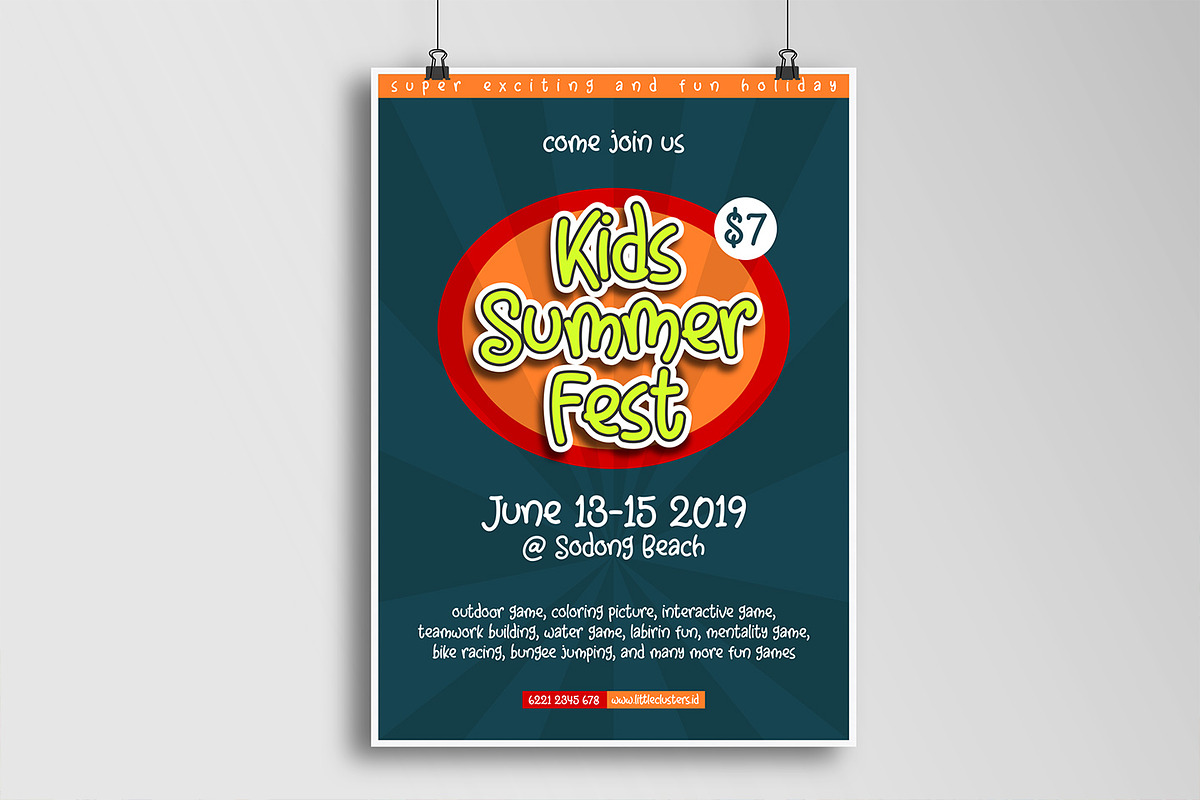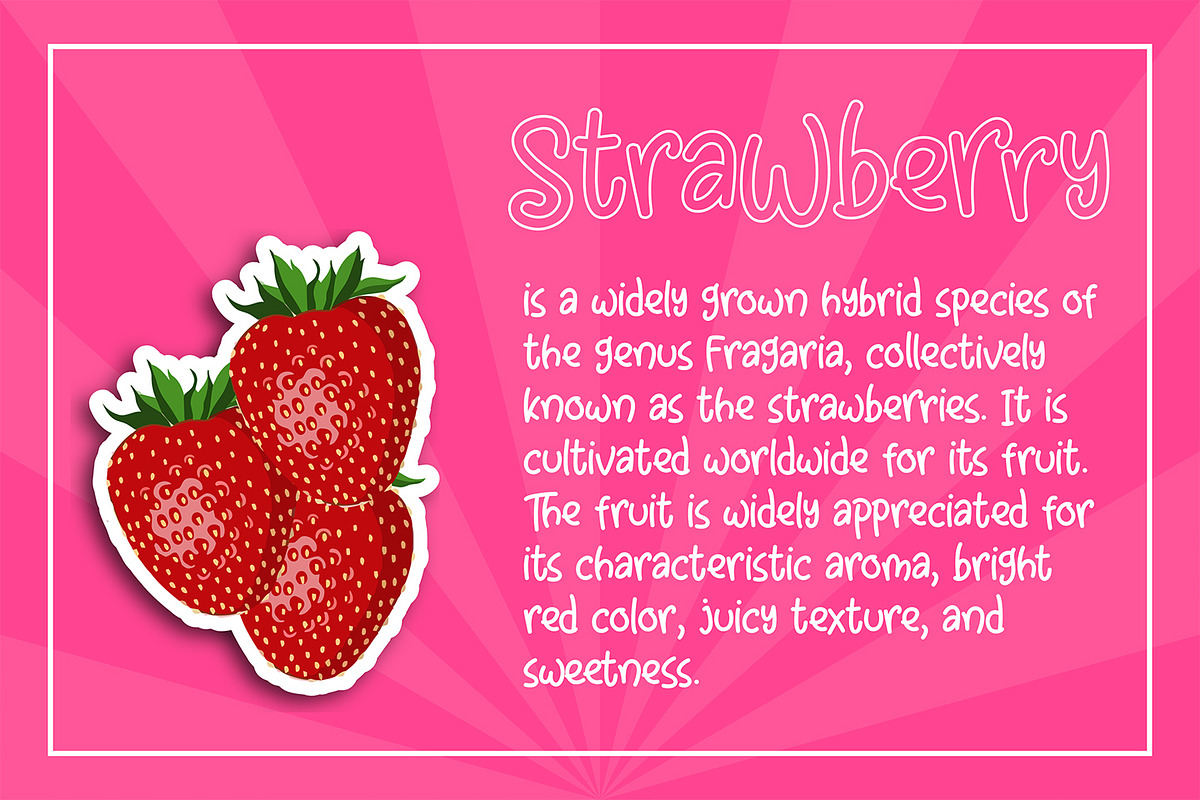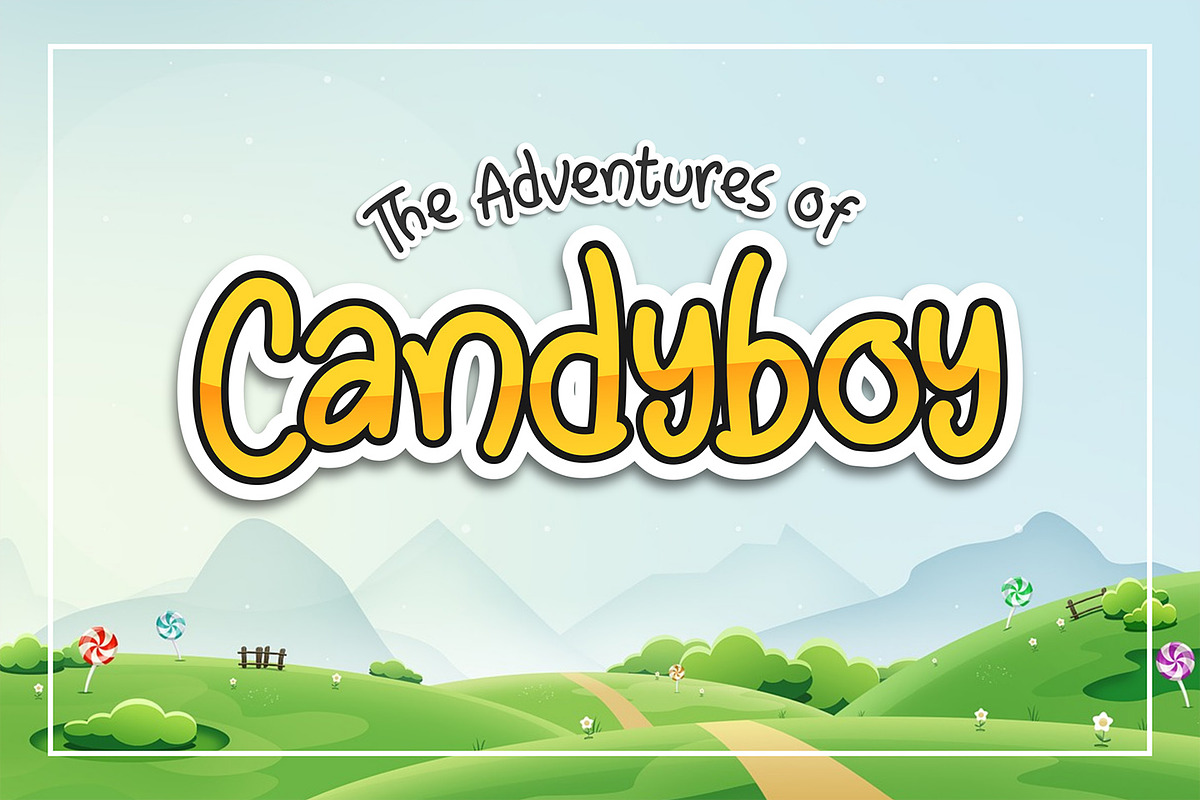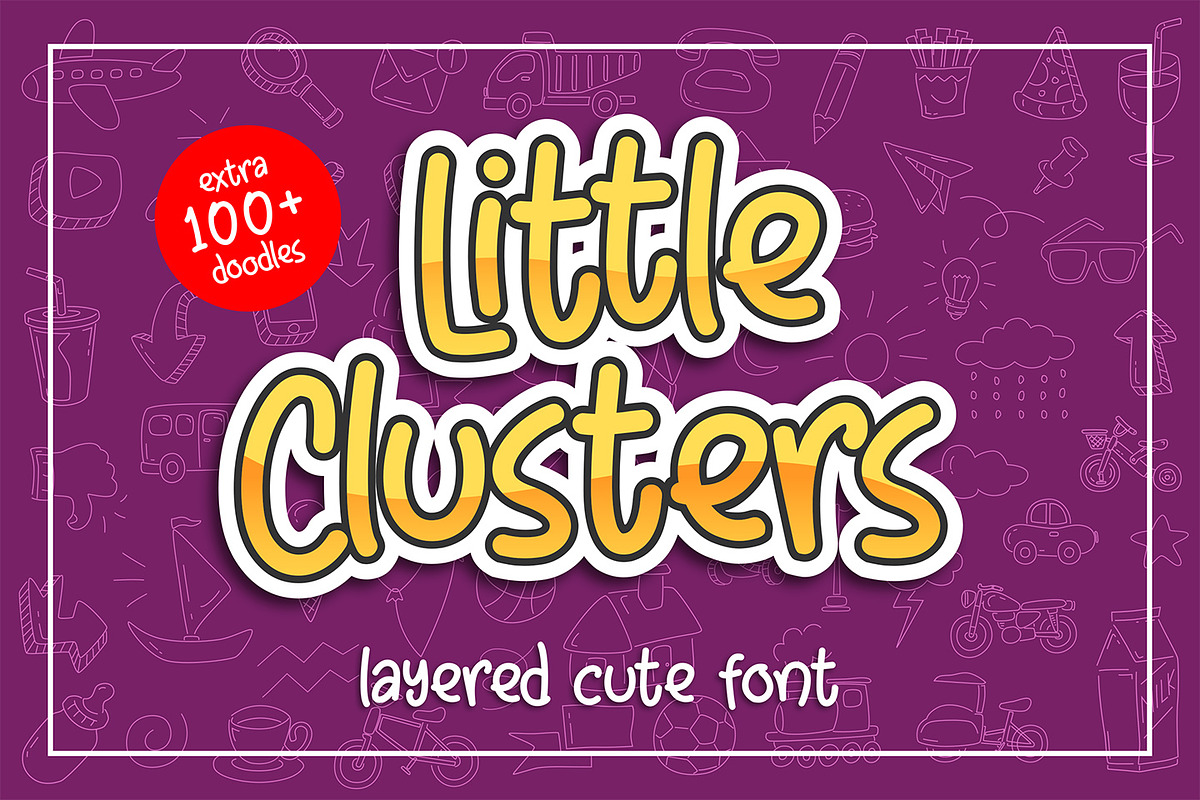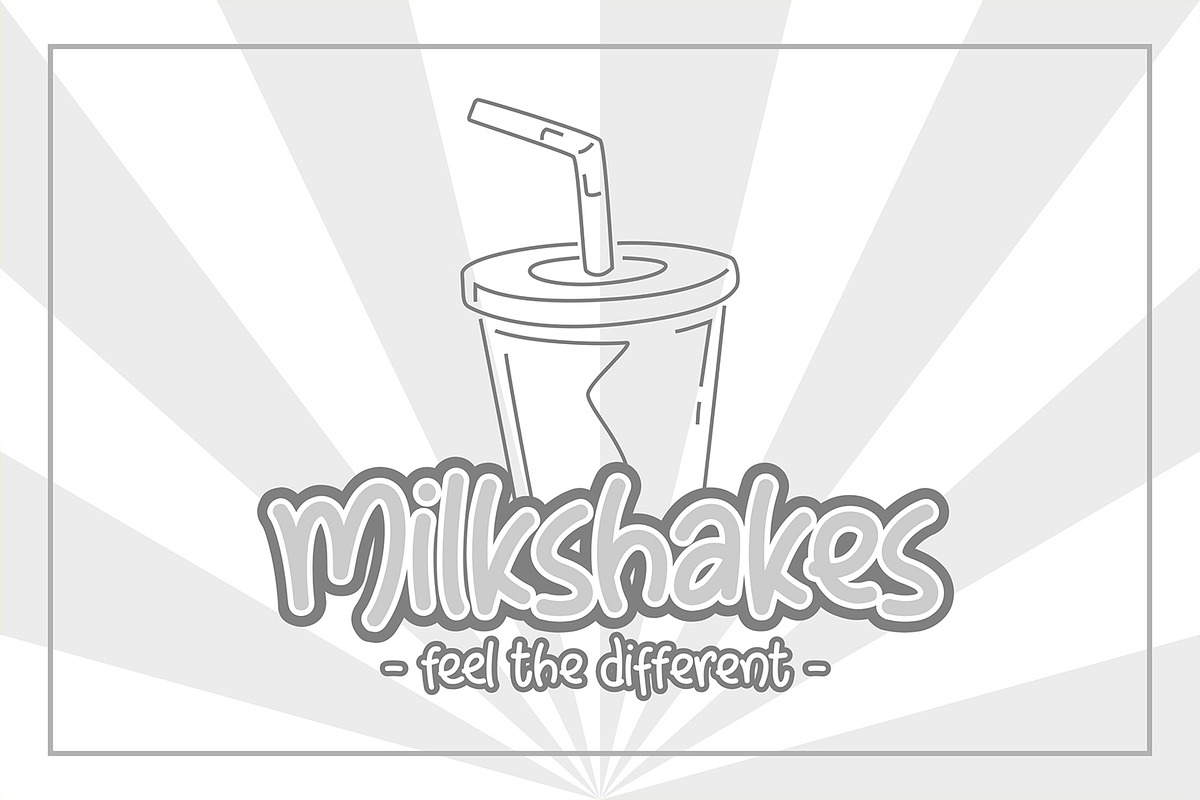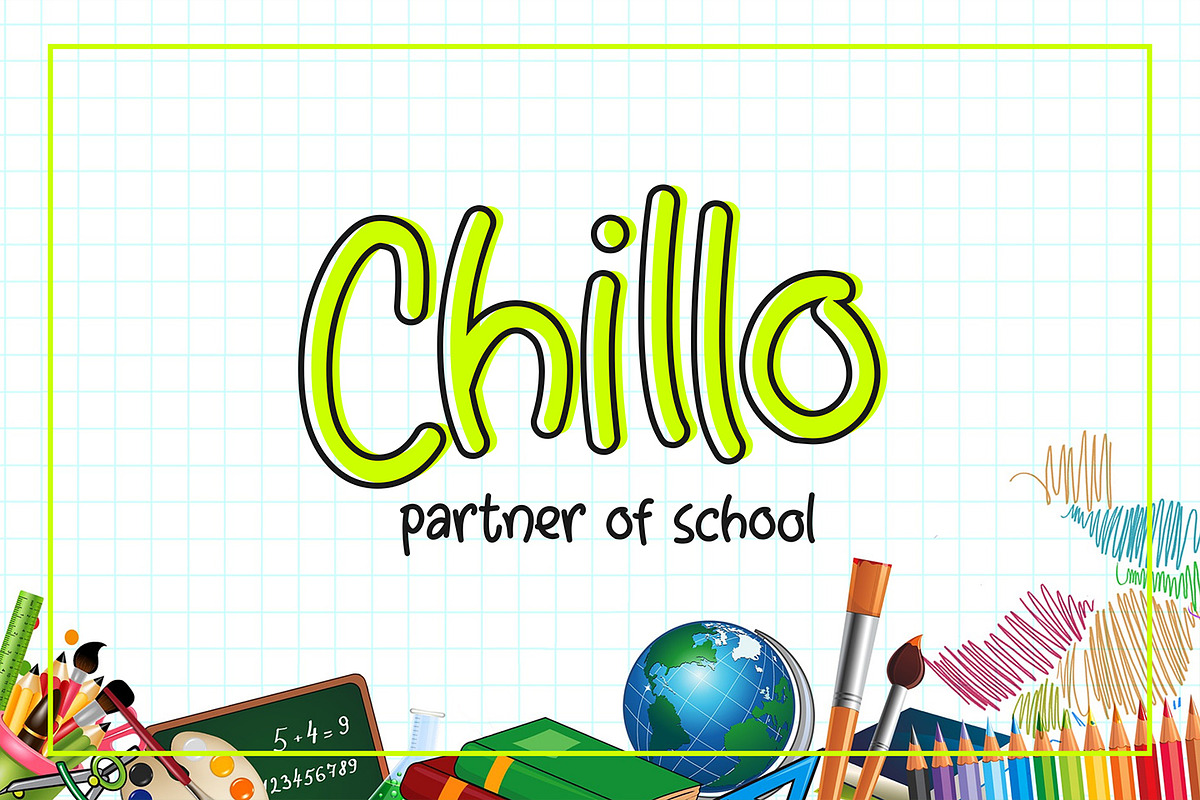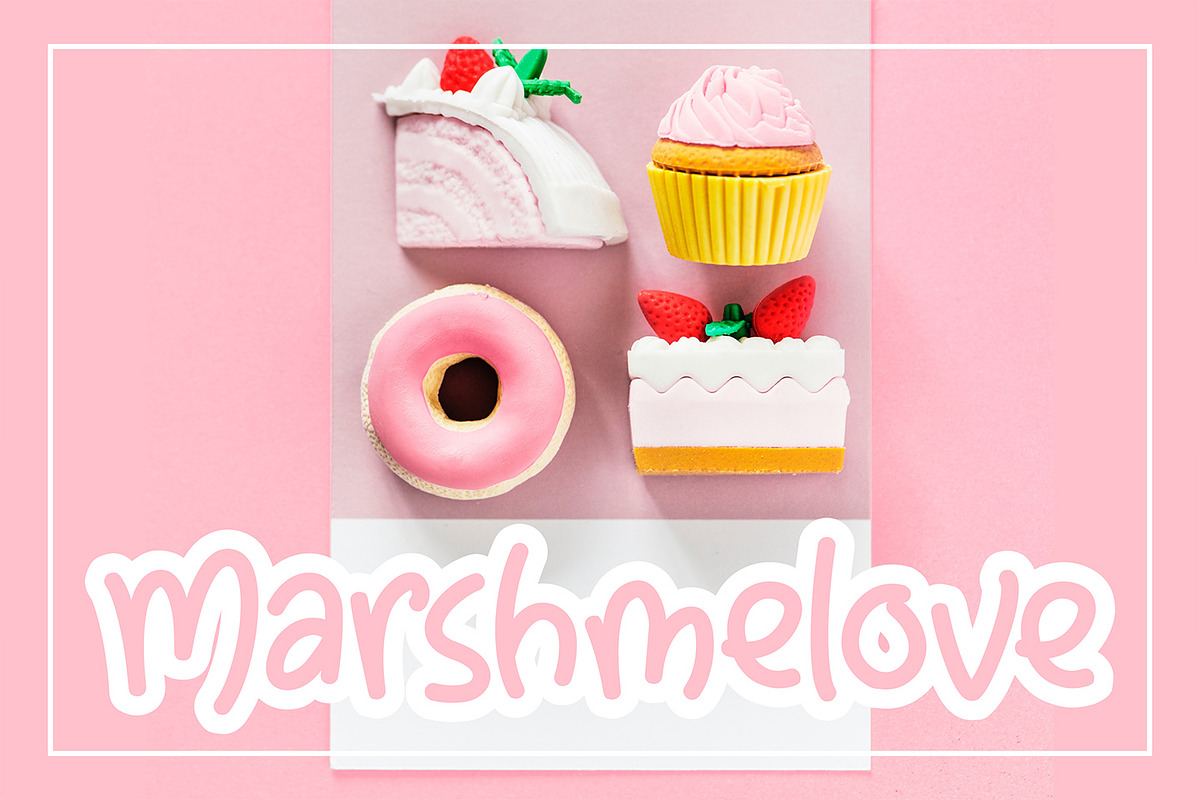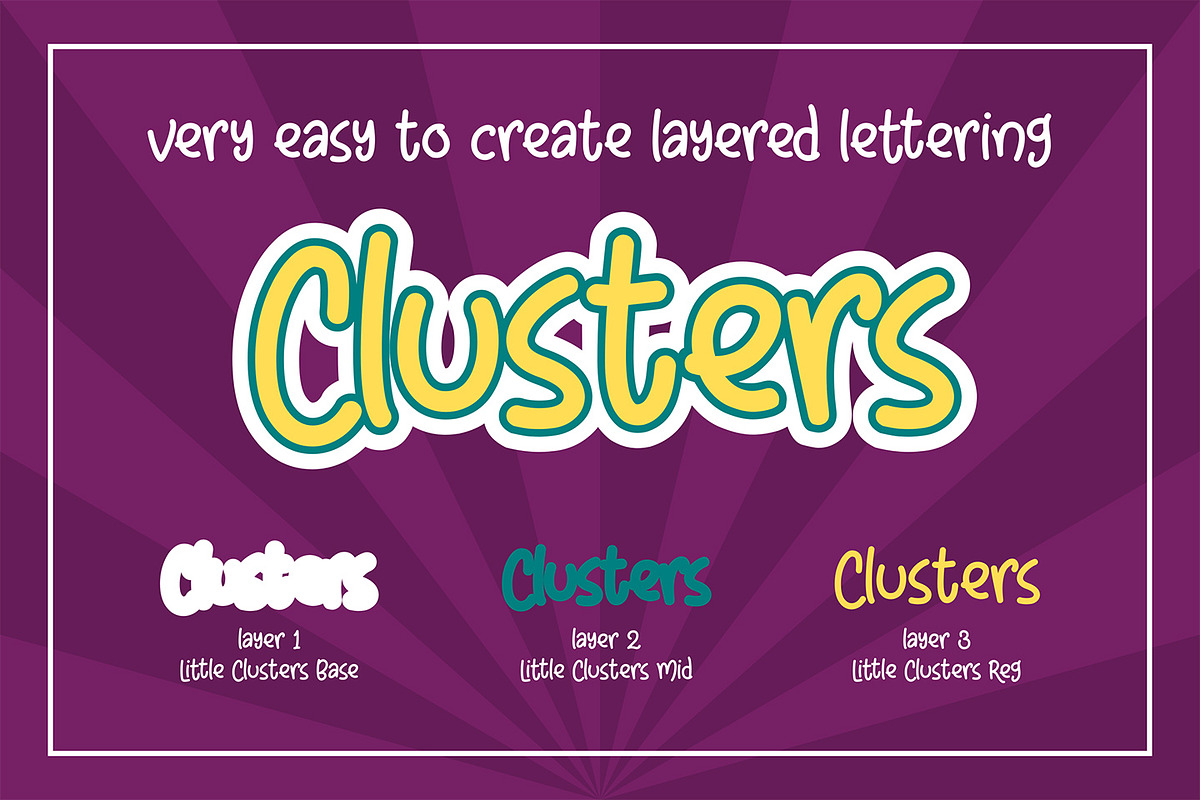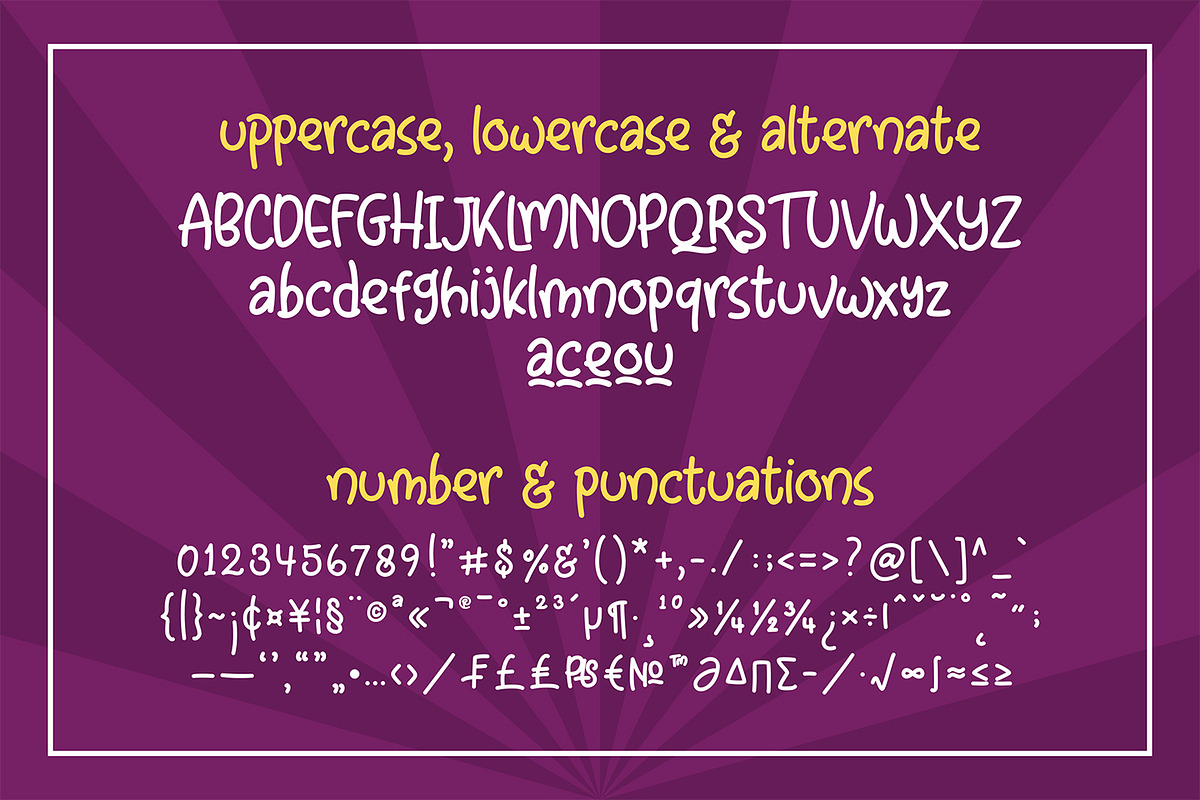
Little CLusters
LITTLE CLUSTERS -layered cute font-
Came with more than 100 Doodles
Little Clusters have 4 types of fonts
Little Clusters reg
Little Clusters mid
Little Clusters base
Little Clusters outline
Very Easy to Create Layered Typography
With these fonts, you'll very easy to create layered typography.
Only need to copy your text three times and change the font for each other.
'Little clusters base' on the first layer, 'little clusters mid' on the second
layer, and 'little clusters reg' on the top of the layer.
or
'Little clusters reg' on the first layer and 'little clusters outline' on the top of the layer.
You are no need to shift the layer.
Great For What?
These fonts are great for apparel, branding, logo, magazine, quotes, packaging, advertising, and more, which need kids' feel.
Little Clusters come in uppercase, lowercase, punctuations, symbols & numerals, and stylistic alternate. Also, support multilingual and is already PUA encoded.
I create more than 50 ligatures to make this font looks naturally.